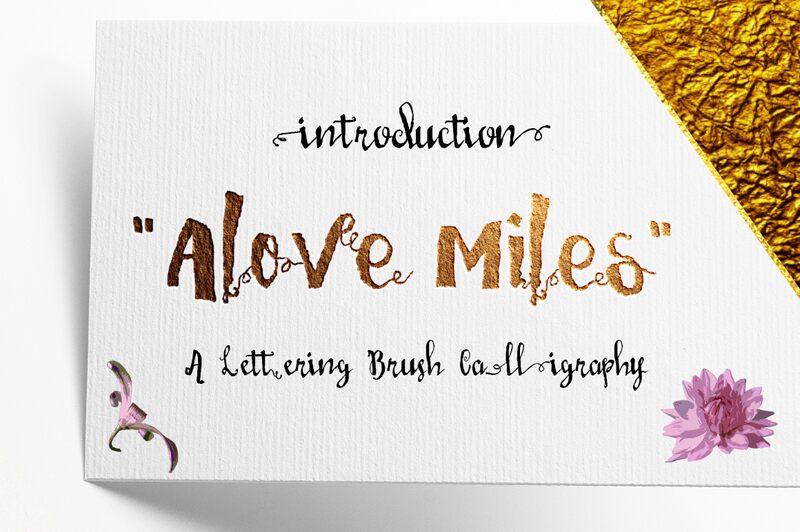
LoveMiles 02 Script font from the Love Miles 02 family is a striking display typeface that captures attention with its whimsical, curly design. Each letter flows playfully, showcasing a delightful balance of elegance and artistry. The exaggerated curves and unique shapes create an inviting charm that can transform any text into a visual statement.
This font’s bold personality makes it perfect for creative projects such as invitations, logos, or branding materials where warmth and character are essential. Its distinct style brings a touch of charm to children's books and casual designs, making it an excellent choice for anything aiming to convey joy and creativity. With LoveMiles 02 Script, your typography will not just communicate but also resonate with the heart's spontaneity.